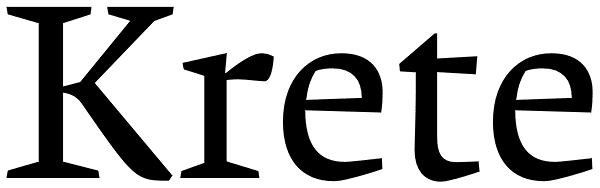
Krete
BluHead Studio continues its collaboration with British designer Roy Preston by producing Krete, Roy’s latest text family. This first release of 12 weights includes Light, Book, Regular, Medium, Bold, and Black, each with a drawn italic.